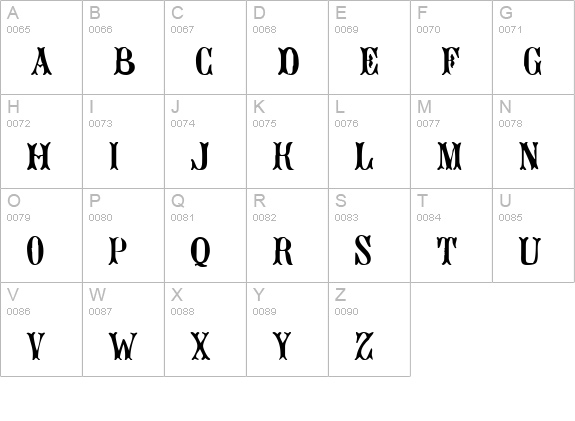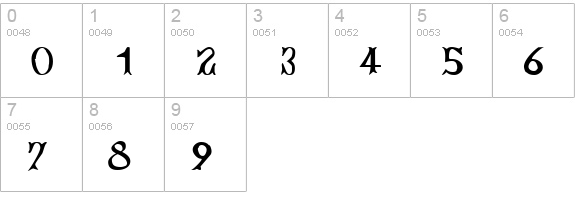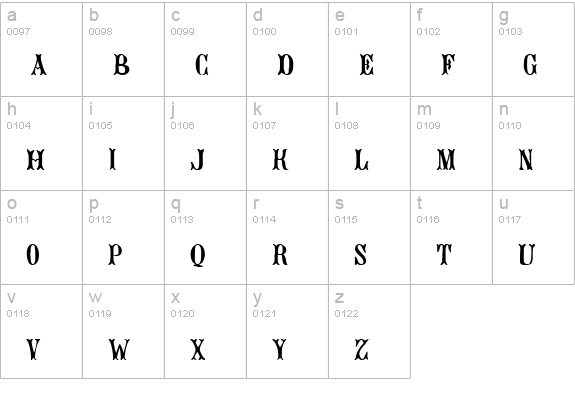
Bujardet Freres (Unregistered) font exudes elegance and sophistication with its timeless design. This beautifully crafted typeface captures the essence of classic French typography, making it perfect for a wide range of design projects. The intricate details of each character reflect the meticulous craftsmanship of the Bujardet Freres design team. What sets this font apart is not only its exquisite aesthetic appeal but also its versatility. Whether you are working on a vintage-inspired branding project or creating elegant wedding invitations, Bujardet Freres (Unregistered) font is sure to make a statement. The best part? Bujardet Freres (Unregistered) font is available for free download at FontsMarket.com. This means you can access this stunning typeface without any cost, making it a valuable addition to your font library. Don't miss out on the opportunity to enhance your designs with the beauty and charm of Bujardet Freres (Unregistered) font.